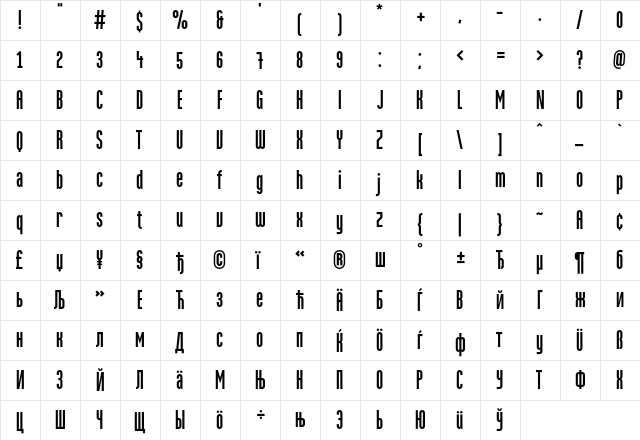
MartenCyrG Grotesque
| Style | Grotesque |
Design Context for MartenCyrG Typeface
MartenCyrG takes a measured approach to typography — its balanced proportions and neutral character make it a reliable workhorse for both digital and print work.